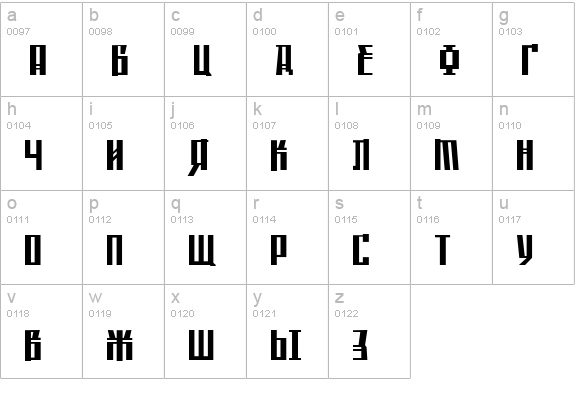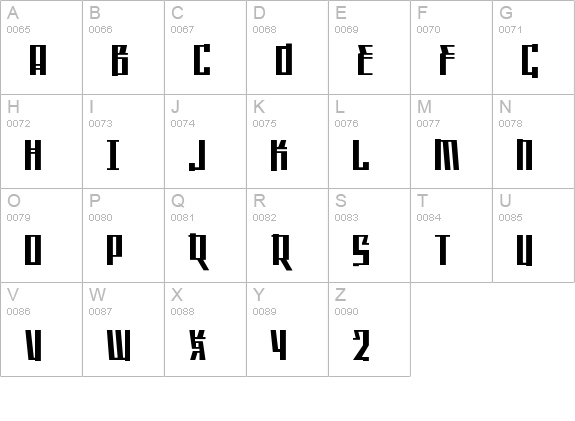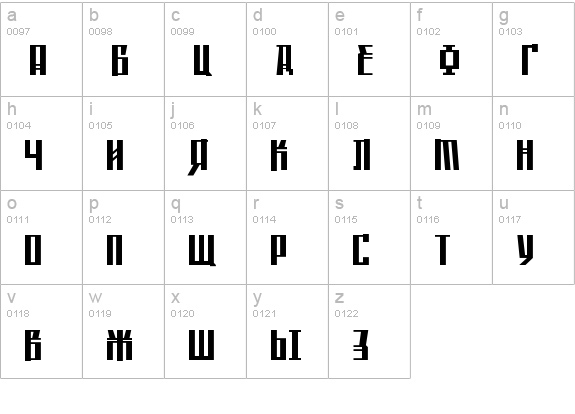
Saffron ColdWar Font Details
Introducing Saffron ColdWar, a captivating font that effortlessly combines the essence of vintage and modern design. This unique typeface is sure to make a lasting impression, whether used for branding, packaging, editorial, or any other creative project. Saffron ColdWar exudes an air of mystery and intrigue, drawing inspiration from the iconic Cold War era. Its bold and distinct strokes imbue a sense of strength and resilience, while its delicate curves add a touch of elegance and sophistication. This font truly captures the essence of a bygone era, while still feeling fresh and contemporary. One of the most remarkable aspects of Saffron ColdWar is that it is freely available to download at FontsMarket.com. This means that designers, artists, and creatives alike can access this stunning font without any constraints. It's a fantastic opportunity to enhance your creative endeavors with a typeface that exudes character and style, all at no cost. With its wide range of characters and exquisite attention to detail, Saffron ColdWar offers endless possibilities for creating eye-catching designs. Whether you're looking to evoke a sense of nostalgia or make a bold statement, this font will undoubtedly elevate your work to new heights. So don't hesitate – unlock the power of Saffron ColdWar and let your creativity soar. Download this remarkable font today, exclusively at FontsMarket.com, and embark on a design journey that seamlessly blends the past with the present, all while enjoying the freedom of a truly remarkable font.